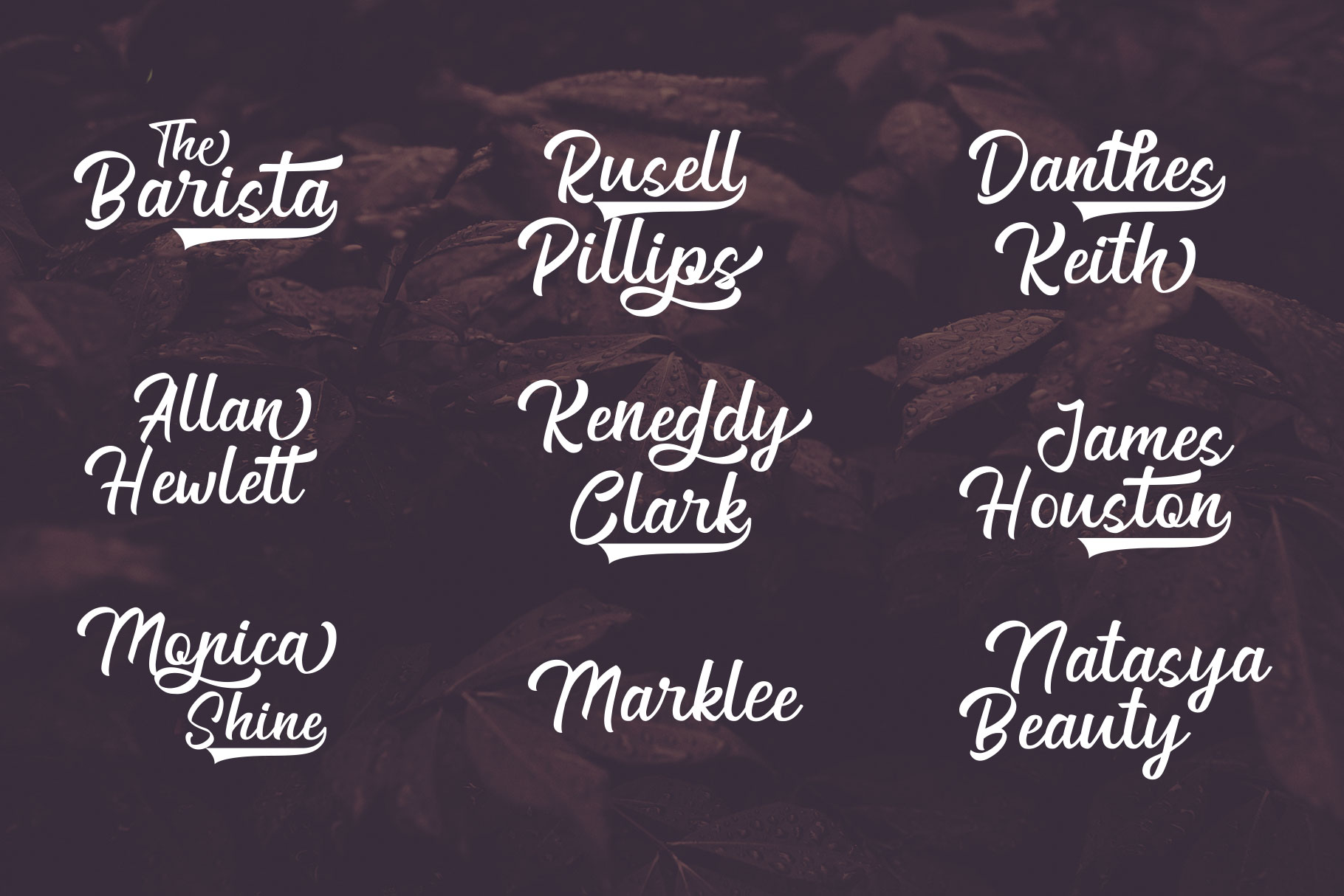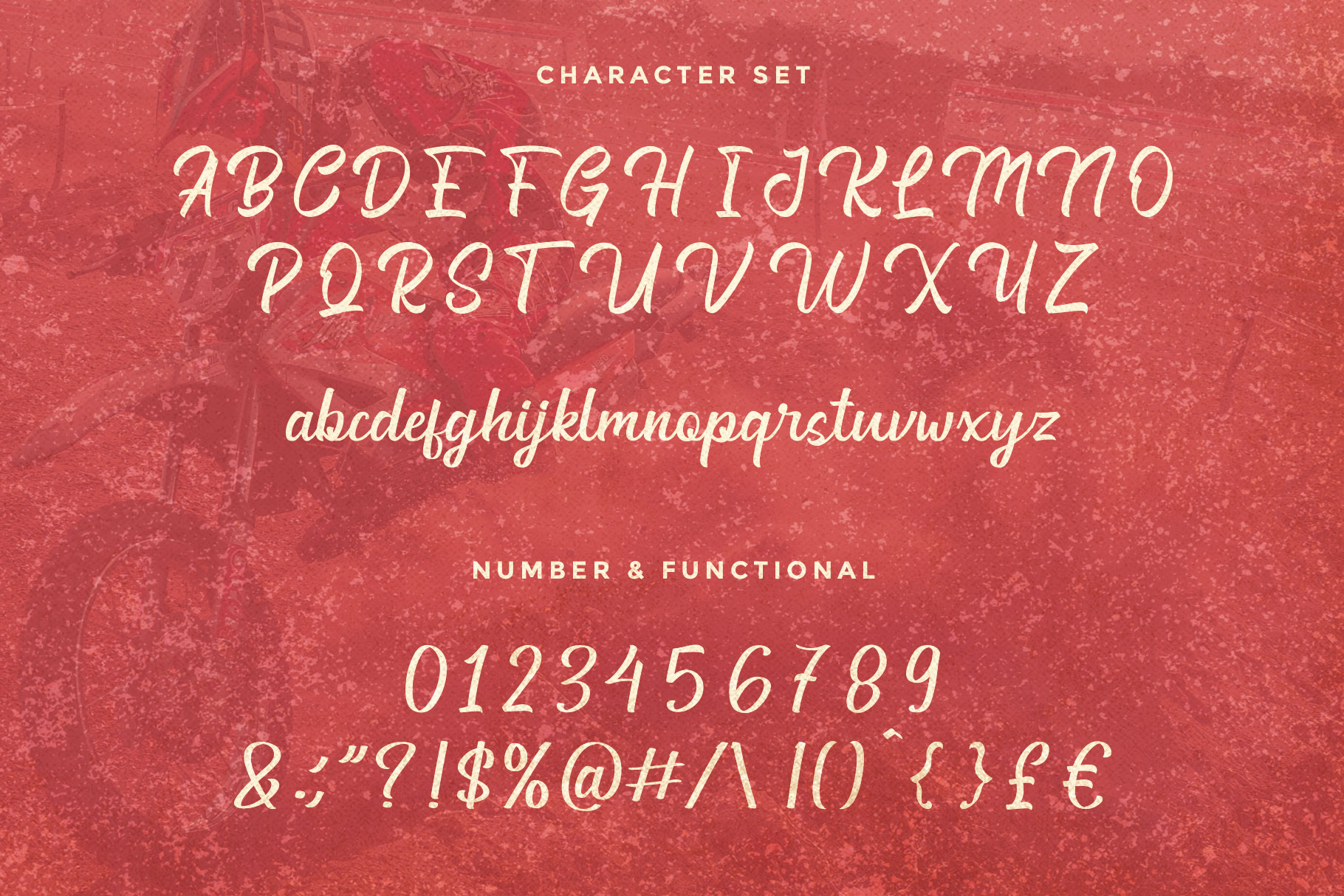
Generation Script Font
Proudly present bold script font “generation”. It is great for making logotype, branding, promotional ads, quotes design, packaging, t-shirt design. merchandise, poster, merchandise, social media and much more.   Generationt is here to make your work or your business to high level!!!